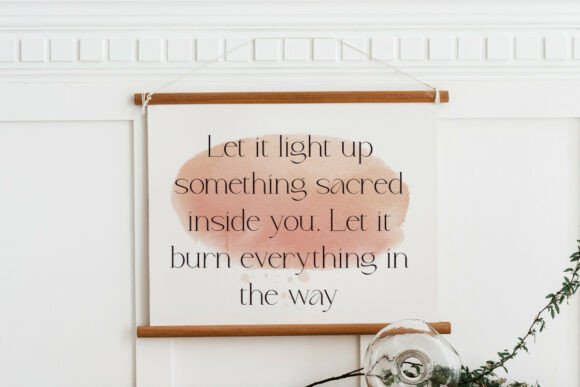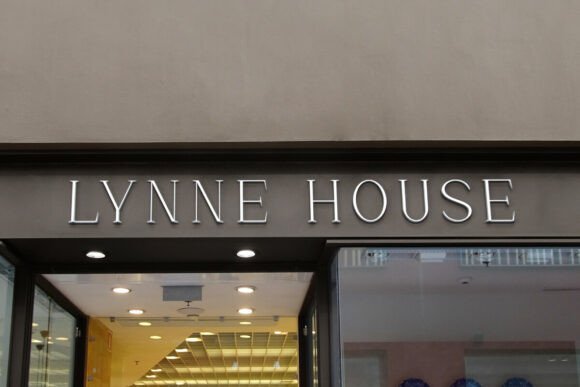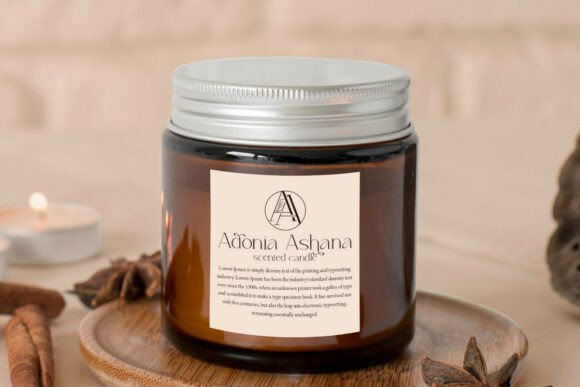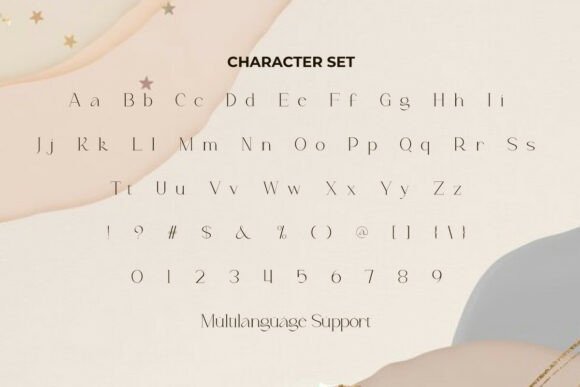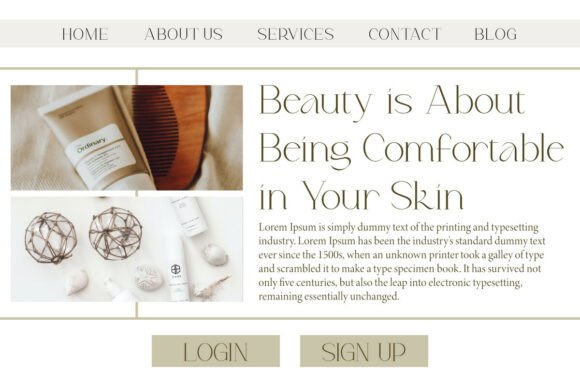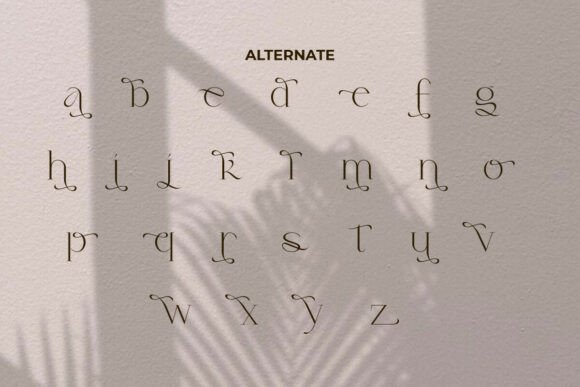
Introducing Alie Jasmine Font: Elevate Your Designs with Elegance
In the world of typography, a font can make or break a design. If you’re a designer, craft, or simply someone who appreciates the art of beautiful typography, you’re in luck. Alie Jasmine Font is a sleek, sophisticated, and stylish serif display font that is sure to elevate your designs to the next level. With its elegant character concept, clean impression, and ease of readability, this font is perfect for a wide range of design applications.
What Makes Alie Jasmine Font Special?
Alie Jasmine Font boasts a unique blend of style and sophistication, making it an excellent choice for designers who want to create stunning visual content. Here are some of the key features that set this font apart:
- Elegant Character Concept: The font’s elegant character concept gives it a refined and luxurious feel, perfect for high-end brands and designs that require a touch of sophistication.
- Clean Impression: The clean lines and precise curves of Alie Jasmine Font create a clean impression that is easy on the eyes, making it perfect for body text and headings.
- Easy to Read: The font’s excellent legibility ensures that your message gets across clearly, whether you’re using it for a brand image, marketing material, or website.
- Alternate Characters: Alie Jasmine Font comes with alternate characters that provide a range of creative possibilities, allowing you to customize your design to suit your brand’s unique style.
Alie Jasmine Font is an incredibly versatile font that can be used for a wide range of design applications, including:
- Brand Image: Create a lasting impression with a custom brand image that showcases your company’s personality and style.
- Cover Design: Make your book, magazine, or catalog cover stand out with a stunning design that incorporates Alie Jasmine Font.
- Custom Design: Use the font to create custom designs for social media, blogs, or websites that reflect your brand’s unique voice.
- Invitation: Create beautiful and elegant invitations for special occasions, such as weddings, parties, or corporate events.
- Label: Use Alie Jasmine Font to create eye-catching labels for products, packaging, or promotional materials.
- Marketing Material: Elevate your marketing material, such as brochures, flyers, or posters, with a sophisticated and stylish font.
- Menu: Create a menu that showcases your restaurant’s or cafe’s brand personality with Alie Jasmine Font.
- Poster: Design stunning posters that grab attention and communicate your message effectively.
- Product Packaging: Use the font to create beautiful and functional product packaging that stands out on store shelves.
- Quotes: Create inspiring and stylish quotes that can be used on social media, blogs, or websites.
- Signage: Use Alie Jasmine Font to create eye-catching signage for businesses, events, or exhibitions.
- Stationery: Elevate your stationery, such as letterheads, business cards, or envelopes, with a touch of elegance.
- Web: Use the font to create a stunning website that reflects your brand’s personality and style.
Industries That Can Benefit from Alie Jasmine Font
Alie Jasmine Font is an excellent choice for a wide range of industries, including:
- Advertising: Create stunning ad campaigns that grab attention and communicate your message effectively.
- Beauty Products: Use the font to create beautiful and elegant packaging, marketing material, or website designs for beauty products.
- Cafes: Create a warm and inviting atmosphere with Alie Jasmine Font, perfect for cafes, restaurants, or coffee shops.
- Fashion: Elevate your fashion brand with a sophisticated and stylish font that showcases your designs.
- Jewelry and Accessories: Use Alie Jasmine Font to create stunning designs for jewelry and accessories that exude luxury and elegance.
- Photography: Create beautiful and elegant designs for photography portfolios, blogs, or websites.
- Printing: Use the font to create stunning prints, such as brochures, flyers, or posters, that grab attention.
- Publishing: Elevate your publishing brand with a sophisticated and stylish font that showcases your publications.
- Restaurants: Create a warm and inviting atmosphere with Alie Jasmine Font, perfect for restaurants, cafes, or bars.
Alie Jasmine Font is a versatile and elegant serif display font that is perfect for designers, crafters, and businesses looking to elevate their designs. With its clean impression, ease of readability, and alternate characters, this font is sure to become a staple in your design toolkit. Whether you’re creating brand images, marketing materials, or websites, Alie Jasmine Font is an excellent choice that will help you communicate your message effectively and stylishly.